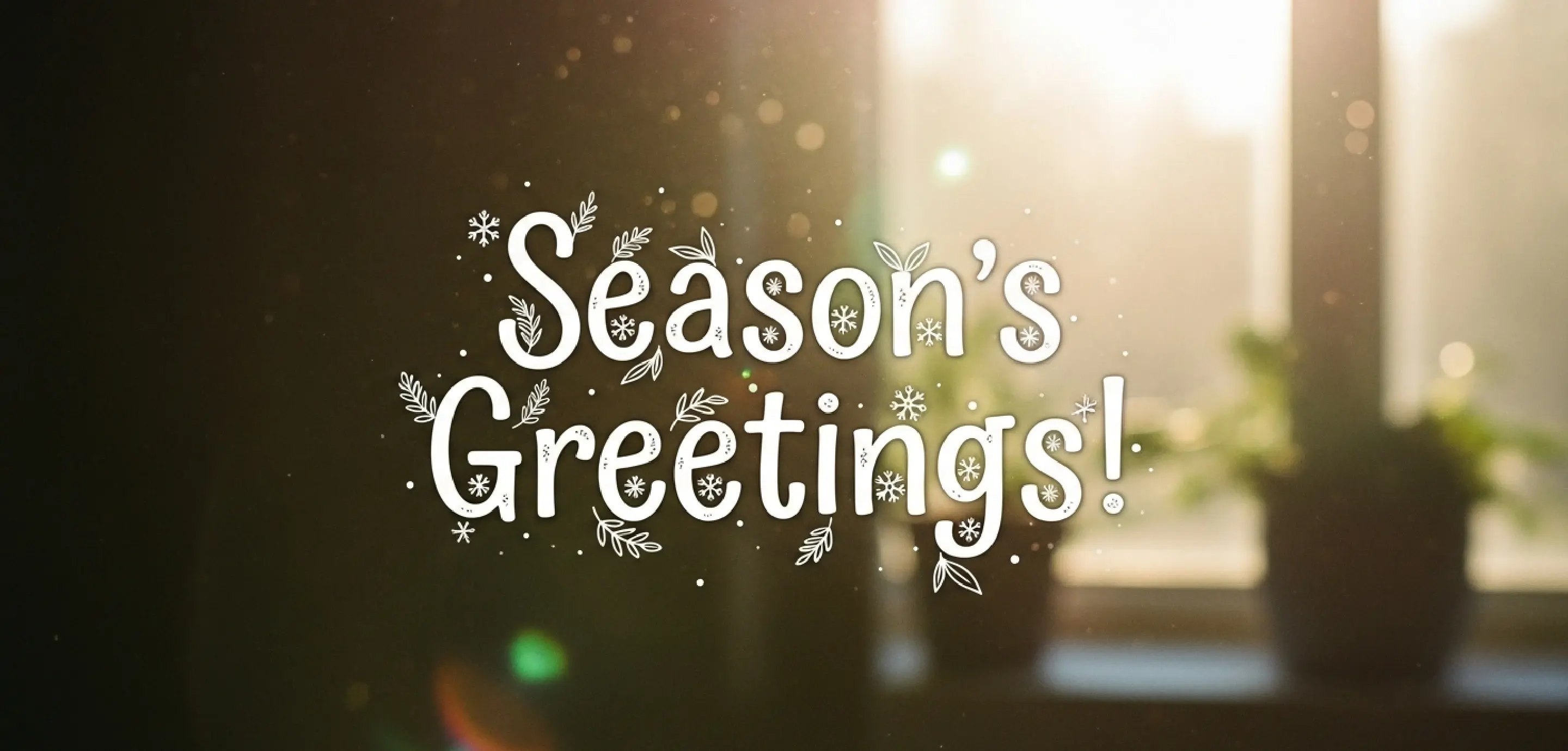
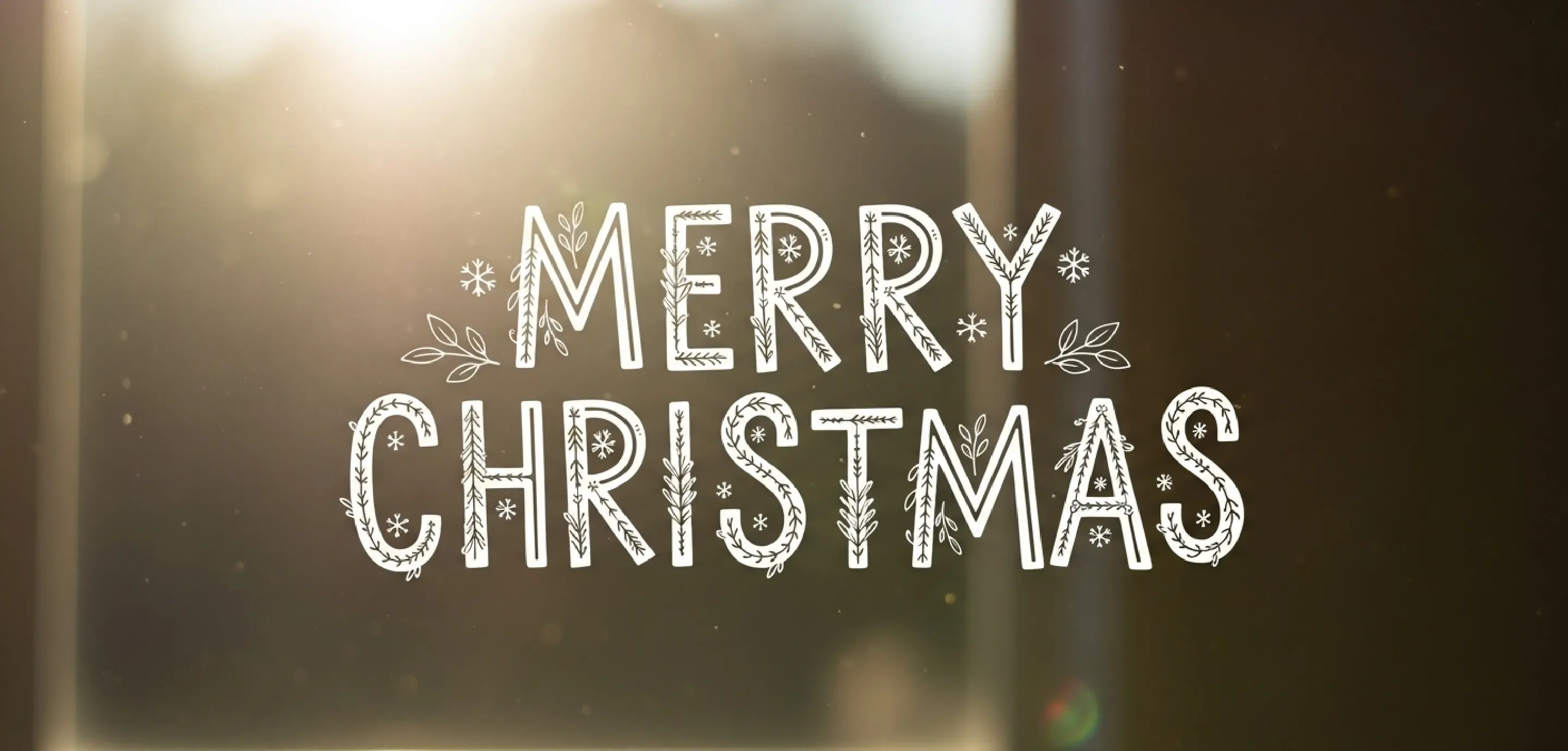
A soft, flowing script covered with frosty snow textures. This Christmas Fonts style uses gentle curves, light shadows, and a natural shake effect to mimic handwriting drawn in fresh snow. Perfect for winter posters, cozy holiday banners, and seasonal social media greetings.
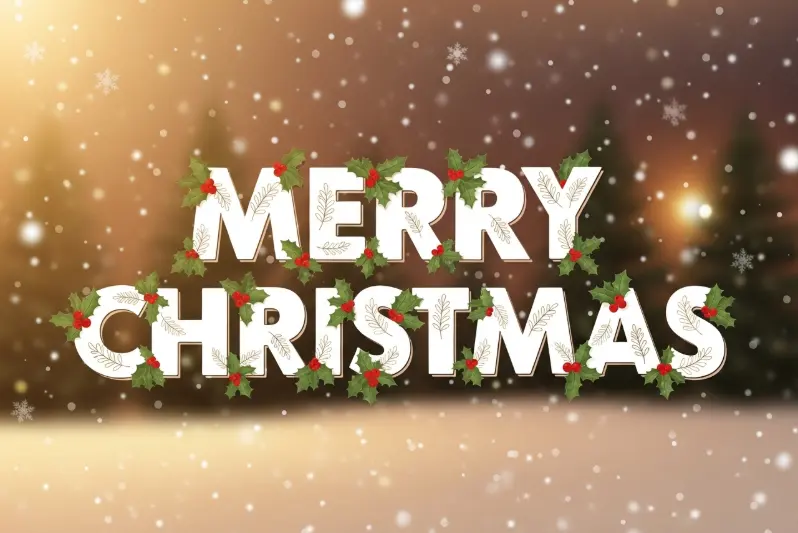
This playful design integrates holly leaves, berries, and subtle foliage outlines directly into the letterforms. The combination of bold strokes and festive botanical elements gives this Christmas Fonts style a lively holiday personality, ideal for greeting cards, event invitations, and children’s Christmas content.
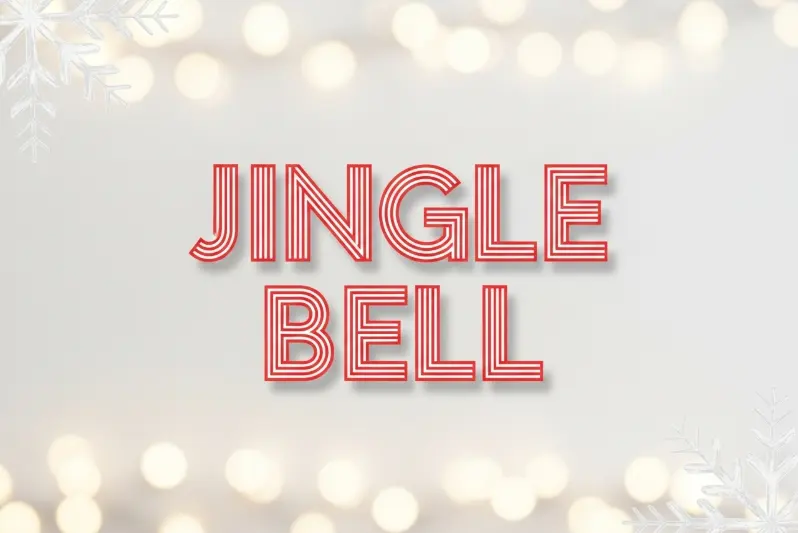
A bright red-and-white striped display font inspired by classic candy canes. Its clean geometric shapes and polished shadows add a modern twist. This Christmas Fonts style works beautifully for retail ads, gift packaging labels, and cheerful holiday promotions.
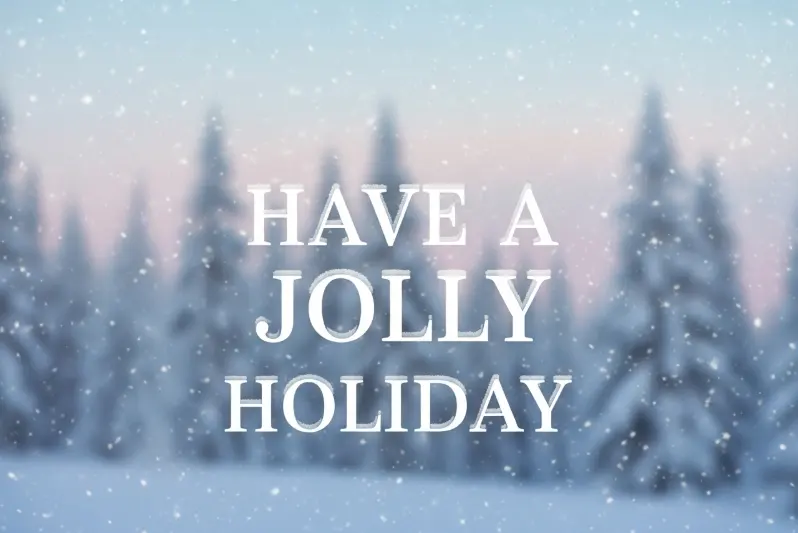
A serif typeface featuring frosted edges, ice-like carvings, and gentle blue gradients. The elegance of the serif structure paired with subtle winter textures makes this Christmas Fonts style well-suited for luxury holiday campaigns, editorial layouts, and upscale seasonal ads.
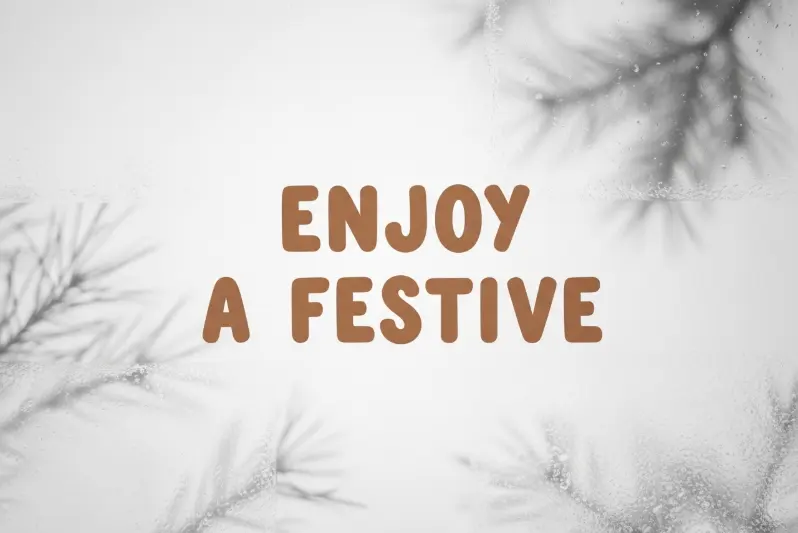
Warm, round, and slightly irregular strokes resemble handmade lettering from holiday crafts. This Christmas Fonts style taps into nostalgia and warmth—perfect for family-friendly posters, kids’ books, and festive social media illustrations.
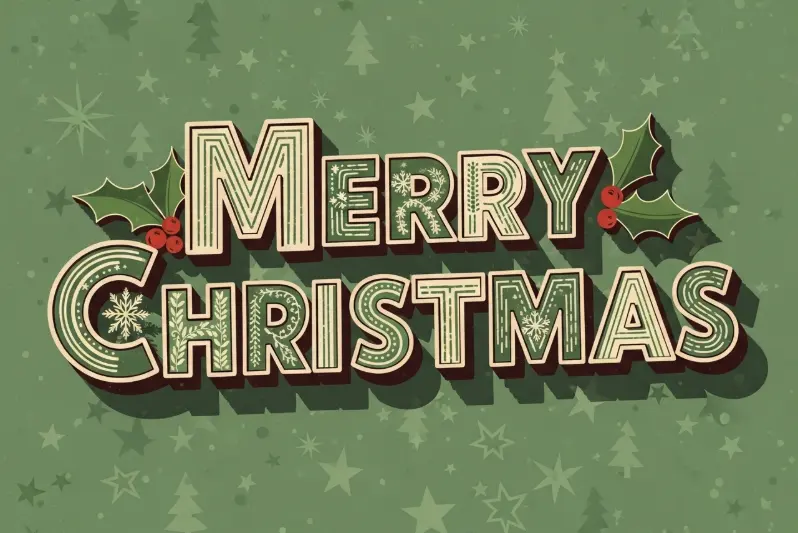
Inspired by mid-century Christmas cards, this Christmas Fonts design features thick outlines, bold shadows, and retro holiday motifs. Ideal for vintage-style posters, nostalgic branding, and traditional holiday marketing themes.
Letters wrapped in glowing Christmas lights create a vivid, modern aesthetic. This AI Christmas Fonts style is perfect for digital campaigns, event announcements, or nighttime holiday promotions.
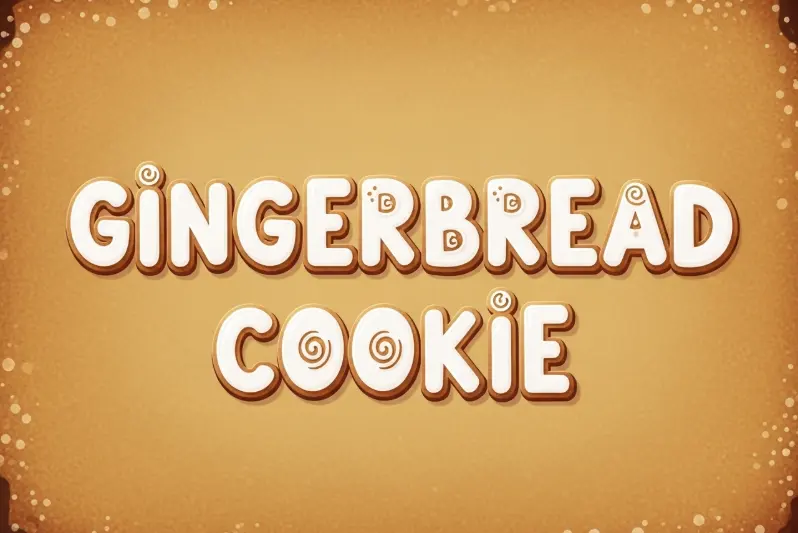
A cute, baked-cookie-inspired design with icing-like dripping textures. This adorable Christmas Fonts style fits perfectly with bakery branding, seasonal product ads, and children’s craft projects.
This typeface carries a unique character through its staggered lettering, soft curves, and subtle serifs. The overall effect is one of playful charm, making it an ideal choice to effortlessly complement holiday-themed designs.
What could be more Christmas than candy canes? This font brings their playful twist to life, where rounded edges soften the sophisticated shading. The result is a joyfully dynamic typeface that's perfect for your holiday designs.